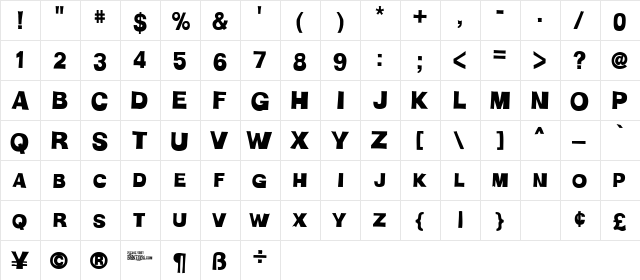
HMan Regular
Design Context for HMan Typeface
HMan takes a measured approach to typography — its balanced proportions and neutral character make it a reliable workhorse for both digital and print work.